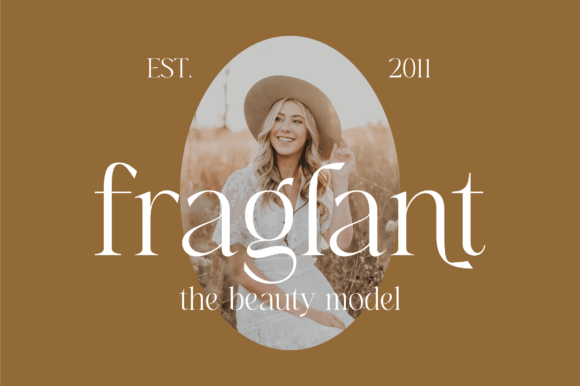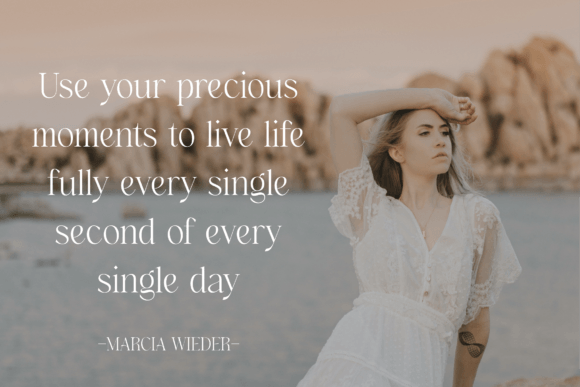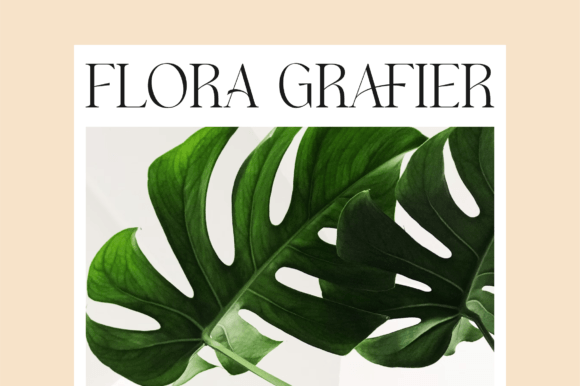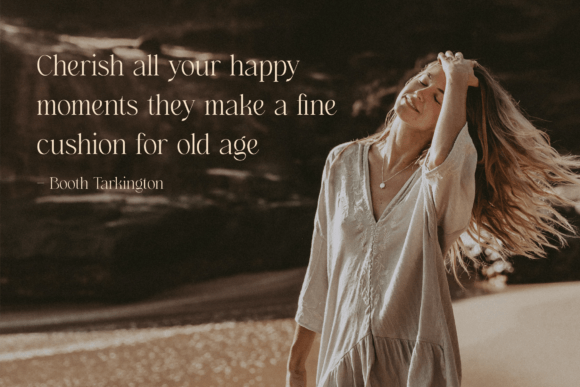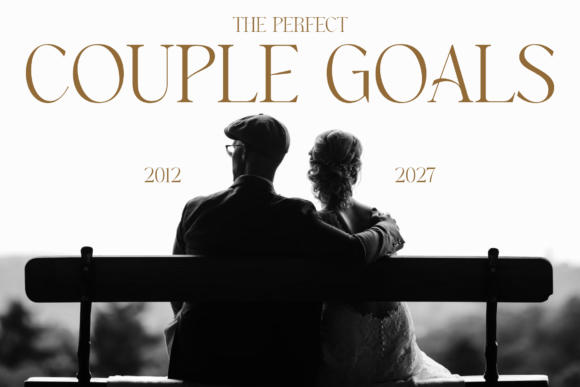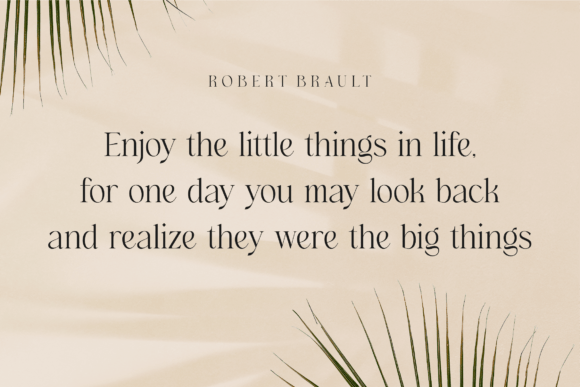
The Perfect Font for Elegance and Luxury
As a designer, there’s nothing quite like the thrill of discovering a new font that perfectly captures the essence of your creative vision. It’s like stumbling upon a hidden treasure – a game-changer that elevates your work to the next level. For me, that moment came when I discovered the Hogbine Font, a modern and classic typeface that exudes sophistication and luxury.
The Hogbine Font is more than just a pretty face – it’s a versatile tool that can add an air of elegance to any design project. Whether you’re working on a logo, book title, fashion brand, or magazine, this font is sure to make a lasting impression. Its unique style and modern look make it a valuable asset for designers looking to create high-end designs that stand out from the crowd.
Hogbine Font Key Features
- Unique Characteristics: Hogbine Font features a unique, hand-drawn design with a mix of modern and traditional elements, making it ideal for creative and artistic projects.
- Font Style and Weight: The font is available in a range of styles, including regular, bold, italic, and bold italic, allowing users to choose the perfect look for their project.
- Language Support: Hogbine Font supports a wide range of languages, including Latin-based languages, Cyrillic, and Greek, making it a versatile choice for international projects.
Hogbine Font Review
I recently had the chance to work with the Hogbine Font, and I must say it’s an interesting addition to the world of typography. ✨ One of the things that stands out is its unique aesthetic, which can add a touch of elegance to any design. The font’s intricate details and subtle texture give it a distinctive look that can be used to create a sense of sophistication.
Another advantage of the Hogbine Font is its wide range of font styles and weights. ✨ This allows designers to experiment with different combinations to achieve the desired look and feel for their project. The font also supports a variety of languages, making it a versatile choice for designers working on international projects.
- ⚠️ The Hogbine Font may not be suitable for very small text sizes, as the intricate details can become lost or difficult to read.
- ⚠️ The font’s texture and details may not be ideal for designs that require a clean and minimalist look.
Overall, I think the Hogbine Font is a solid choice for designers looking to add some visual interest to their projects. While it may have some limitations, its unique aesthetic and versatility make it a great addition to any font collection. With careful consideration of its strengths and weaknesses, designers can create stunning designs that make the most of this font’s capabilities.
Tips for Getting the Most Out of Hogbine Font
To get the most out of Hogbine Font, consider the following tips:
- Use Hogbine Font for headings and titles to create a strong visual impact.
- Combine Hogbine Font with other fonts to create a unique and interesting typography.
- Experiment with different font sizes and styles to create a visually appealing design.
Hogbine Font is commonly used for:
- Typography-based designs.
- Editorial and publishing designs.
Q: What is the recommended font size for Hogbine Font?
The recommended font size for Hogbine Font varies depending on the application and the intended use. However, as a general guideline, we recommend using font sizes between 12pt and 18pt for body text, and 24pt or larger for headings and titles. This will ensure optimal legibility and readability.